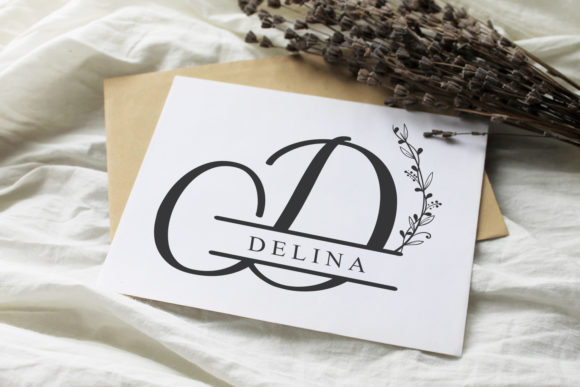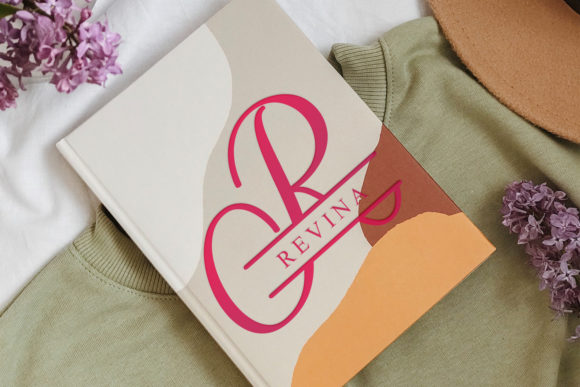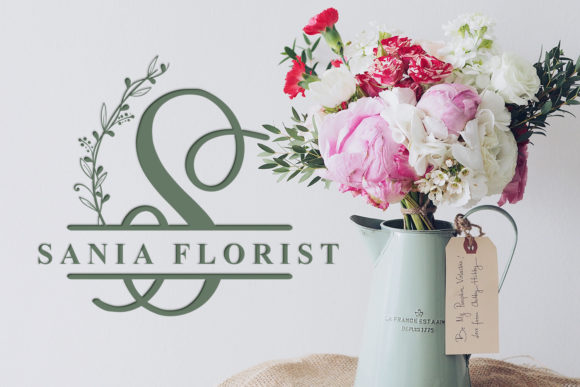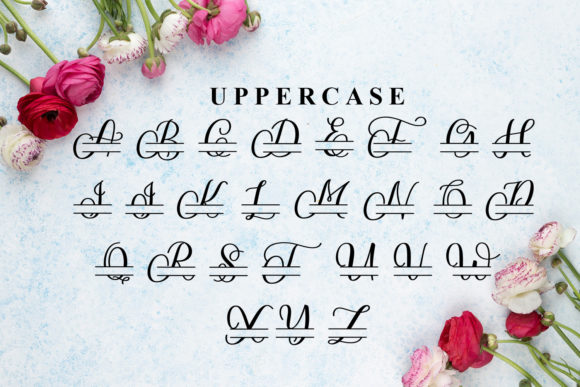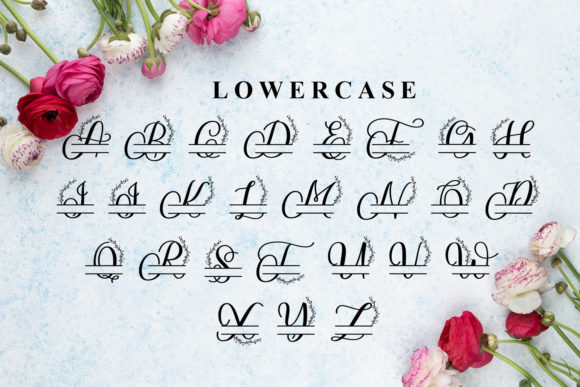
Introducing Bianca Monogram Font: The Perfect Addition to Your Romantic Designs
Are you a designer or crafter looking for a unique and decorative font to add a touch of romance to your projects? Look no further than Bianca Monogram Font. This dainty and charming font is perfect for love letters, wedding invitations, and other design ideas that require a personal and elegant touch.
What is Bianca Monogram Font?
Bianca Monogram Font is a beautifully crafted decorative font that exudes romance and sophistication. Its intricate and delicate design makes it perfect for adding a touch of elegance to any project. Whether you’re creating wedding invitations, love letters, or other romantic designs, Bianca Monogram Font is sure to impress.
Features of Bianca Monogram Font
- Unique and Decorative: Bianca Monogram Font features a one-of-a-kind design that is sure to make your projects stand out.
- Romantic and Lovely: The font’s delicate and intricate design makes it perfect for romantic designs, such as wedding invitations and love letters.
- Elegant and Sophisticated: Bianca Monogram Font adds a touch of elegance and sophistication to any project, making it perfect for high-end designs.
- Versatile: The font can be used for a variety of design projects, including wedding invitations, love letters, and other romantic designs.
- Wedding Invitations: Add a touch of romance and elegance to your wedding invitations with Bianca Monogram Font.
- Love Letters: Make your love letters extra special with this beautiful and unique font.
- Greeting Cards: Use Bianca Monogram Font to create beautiful and elegant greeting cards for special occasions.
- Design Projects: Add a touch of sophistication and elegance to your design projects with this versatile font.
- Adds a Touch of Romance: Bianca Monogram Font is perfect for adding a touch of romance to your designs.
- Unique and Eye-Catching: The font’s unique design makes it sure to grab attention and make your projects stand out.
- Elegant and Sophisticated: Bianca Monogram Font adds a touch of elegance and sophistication to any project.
- Use it Sparingly: Bianca Monogram Font is a decorative font, so it’s best to use it sparingly to avoid overwhelming your design.
- Pair it with Other Fonts: Pair Bianca Monogram Font with other fonts to create a unique and interesting design.
Bianca Monogram Font is a beautiful and unique decorative font that is perfect for adding a touch of romance and elegance to your designs. With its intricate and delicate design, it’s sure to make your projects stand out. Whether you’re a designer or crafter, Bianca Monogram Font is a great addition to your font collection. So why wait? Download Bianca Monogram Font today and start creating beautiful and romantic designs!